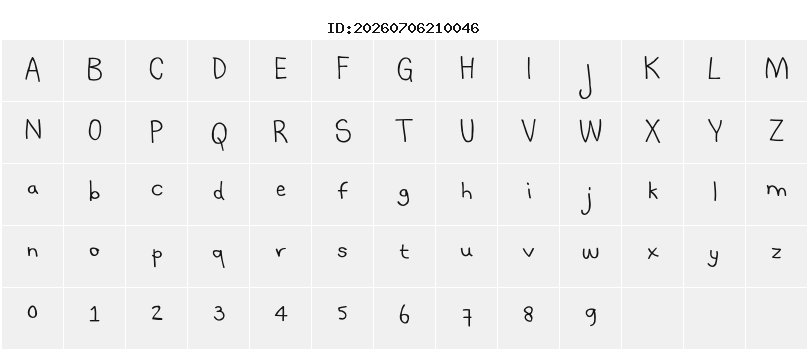
• Font Name: Demisol Script Ext
• Manufacturer: Tjarda Koster - Jelloween
About Demisol Script Ext.otf
Demisol Script Ext.otf is a modern, elegant sans-serif font designed for ultimate readability and visual harmony. Perfect for branding, headlines, web design, and print materials.